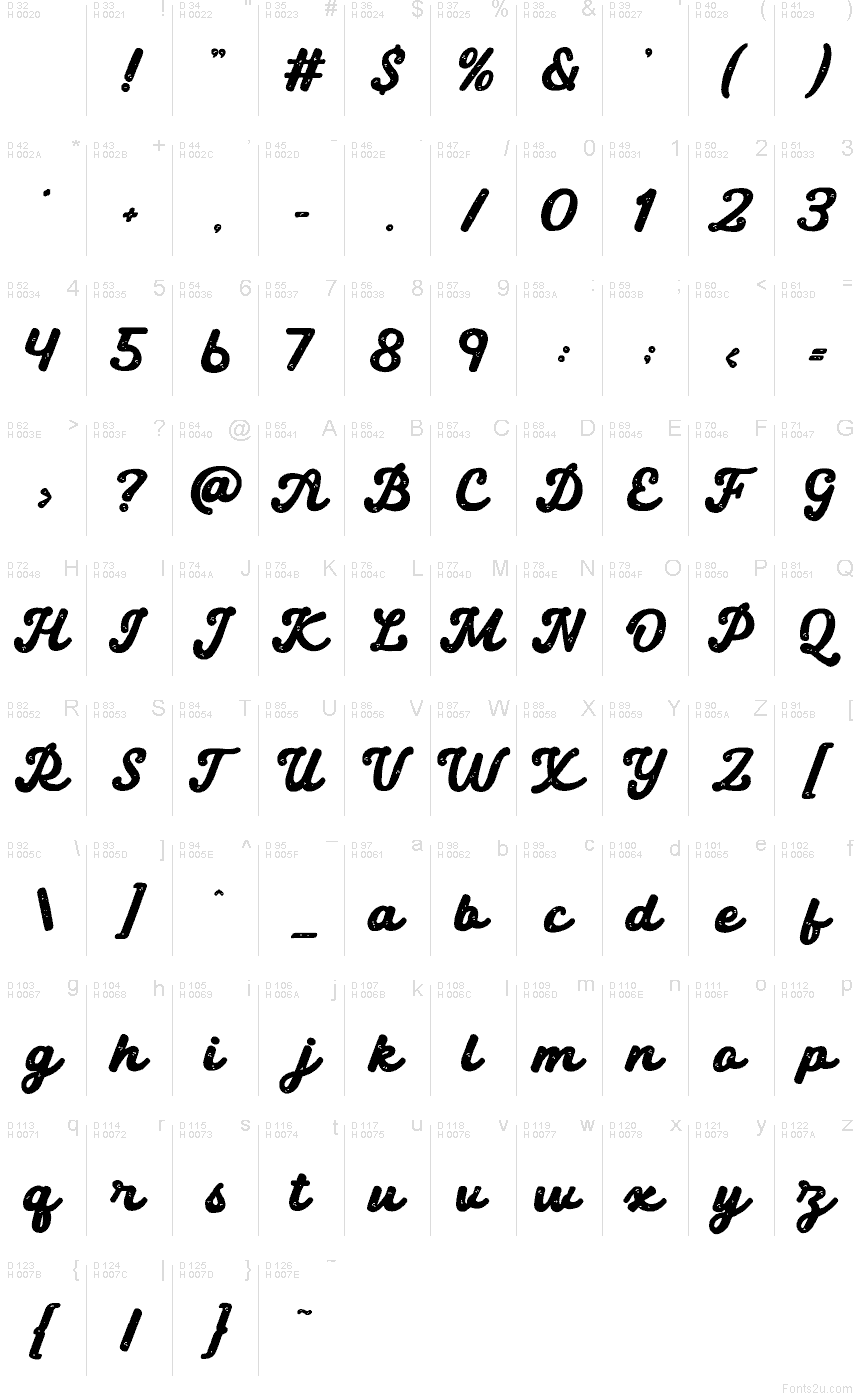
Locke Port Texture by Putracetol Studio is a free brush script with broad, rolling strokes and a visibly weathered surface. Its letters lean into generous loops, soft joins, and sweeping curves that keep the dense forms moving. Small scattered chips interrupt otherwise solid strokes.
Themes of vintage sign painting, road culture, and handmade goods suit its combination of friendly curves and hard-worn texture. It has particular value on coffee packaging, apparel graphics, and music posters, where the distressed lettering can become part of the printed image. Restaurant branding and event invitations offer a second setting for its informal, upbeat sweep.